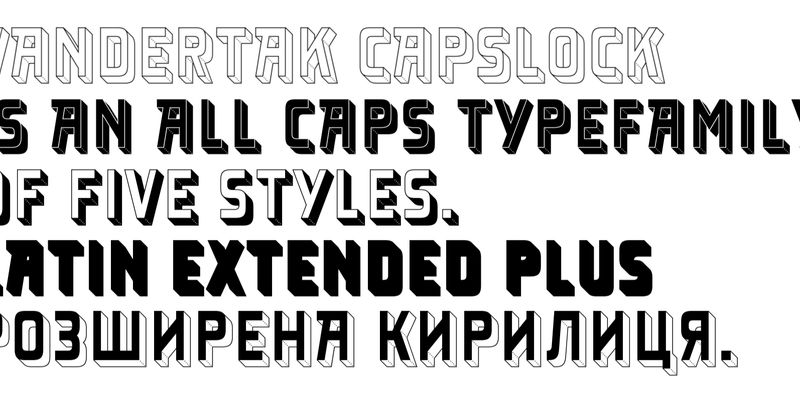
As its name suggests, Vandertak CAPSLOCK Line is an all-caps version of Vandertak. But it is also much more than that. Referencing the architectural origins of the typeface, the five styles were given a dimensional look. Because they are stackable, you can overlay variants in different colours to create chromatic typography. Let your titles and headlines pop up from the page – almost literally – with colourful combinations of Vandertak CAPSLOCK Line.